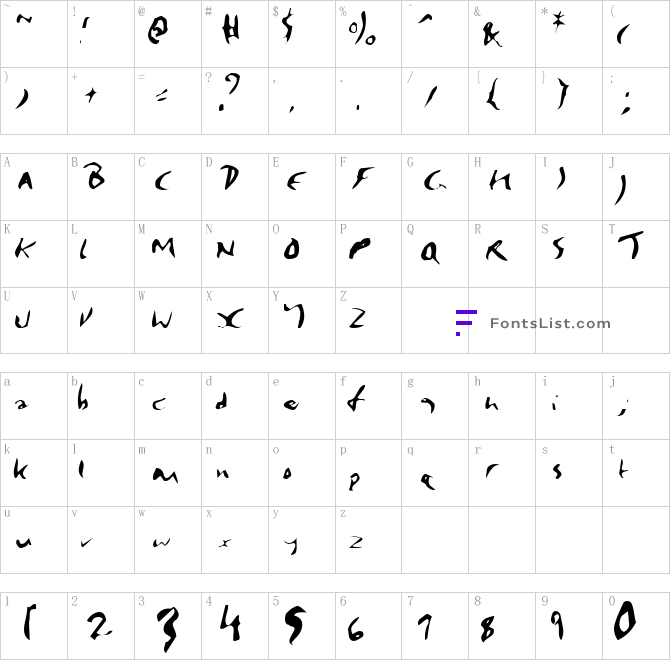
- Font Name:Badpalace 1
Badpalace-1.ttf is a very beautiful artistic font, Badpalace-1.ttf is widely used in the design and printing of various books and pictures,Badpalace-1.ttf has a strong visual impact,Badpalace-1.ttf is a commonly used font in newspapers, magazines and books, and is used in posters, e-commerce Poster design, store design, logo design, font design and other fields.Badpalace-1.